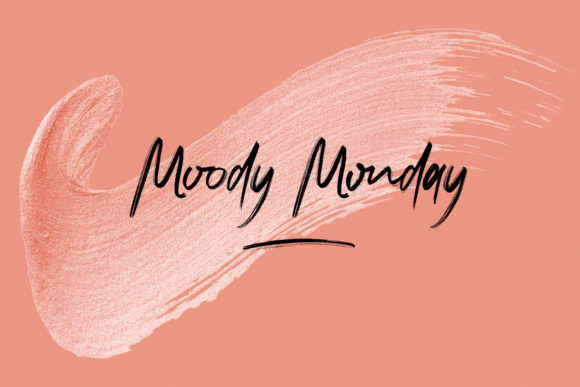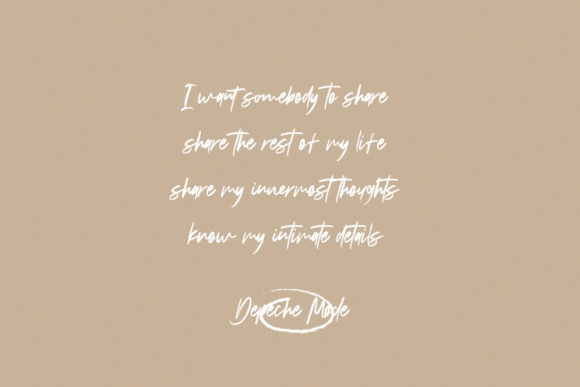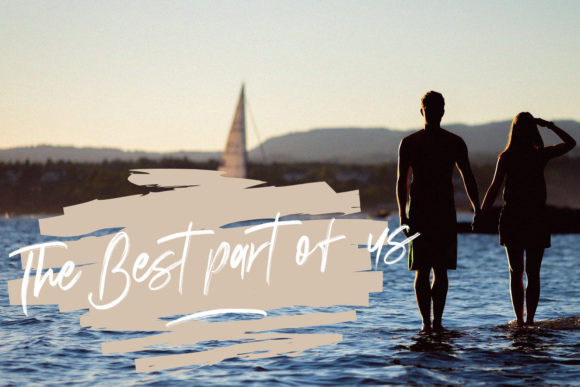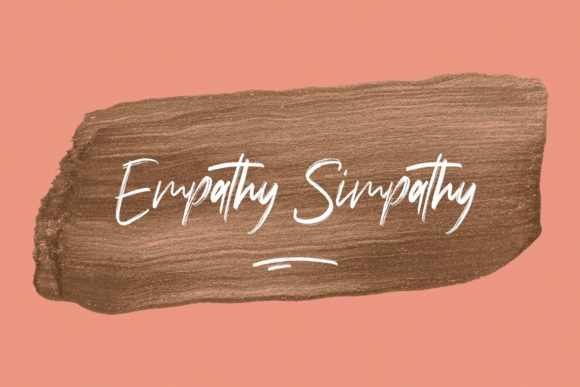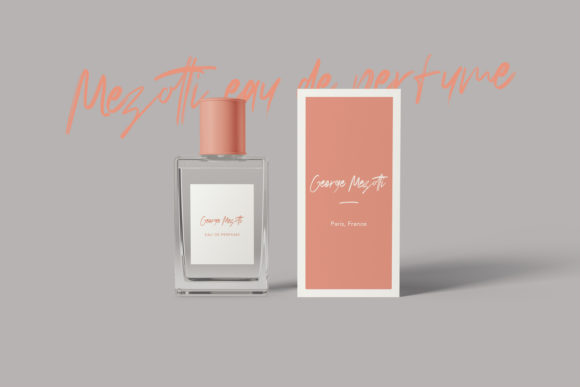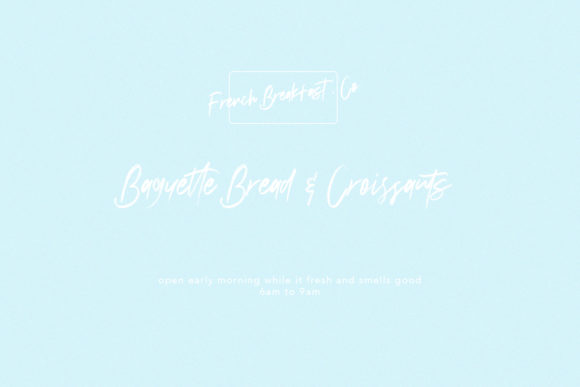
Introduction to Dillemma Font
Have you ever been stuck in the middle of a creative project, unsure of the perfect font to bring your vision to life? I know I have! The search for the ideal typography can be a daunting task, but what if I told you there’s a font that can elevate your design to the next level?
Enter the Dillemma Font, a stunning, hand-crafted typeface that’s sure to captivate your audience. Its rough, brushed texture and unique letterforms make it a true masterpiece. Whether you’re working on a branding project, a digital campaign, or simply need a design resource to give your work some extra oomph, the Dillemma Font is the perfect addition to your toolkit.
Key Features of Dillemma Font
- High-quality design resource with a unique, creative style
- Designed to be highly versatile, suitable for a wide range of applications, from branding to editorial content
Honest Review: Dillemma Font
I recently had the opportunity to work with the Dillemma Font, a free design resource that has gained quite a following in the design community. As a designer, I’m always on the lookout for high quality fonts that can elevate my creative projects.
Overall, I’m impressed with the Dillemma Font. Its high quality and versatility make it an excellent choice for designers working on creative projects. While there are some limitations to consider, I believe the benefits far outweigh the drawbacks.
- High quality and versatile font
- Wide range of styles and weights to choose from
How to Use Dillemma Font
The Dillemma Font is a high-quality, versatile design resource ideal for various creative projects. Its transparent background makes it easy to integrate into any design.
Tips for Getting the Most Out of Dillemma Font
Experiment with different font sizes and styles to create a unique look. Use it in combination with other design elements to add depth and visual interest.
The Dillemma Font is suitable for various design projects, including logos, brochures, business cards, and social media graphics.
Compared to Dillemma Font, Pacifico has a more refined and polished look, making it suitable for high-end designs. While Dillemma Font has a bold and edgy feel, Pacifico is more delicate and intricate.
Compared to Dillemma Font, Great Vibes is more versatile and can be used in a variety of contexts, from casual to formal. While Dillemma Font has a strong, bold look, Great Vibes is more flexible and can be easily customized to fit different design needs.